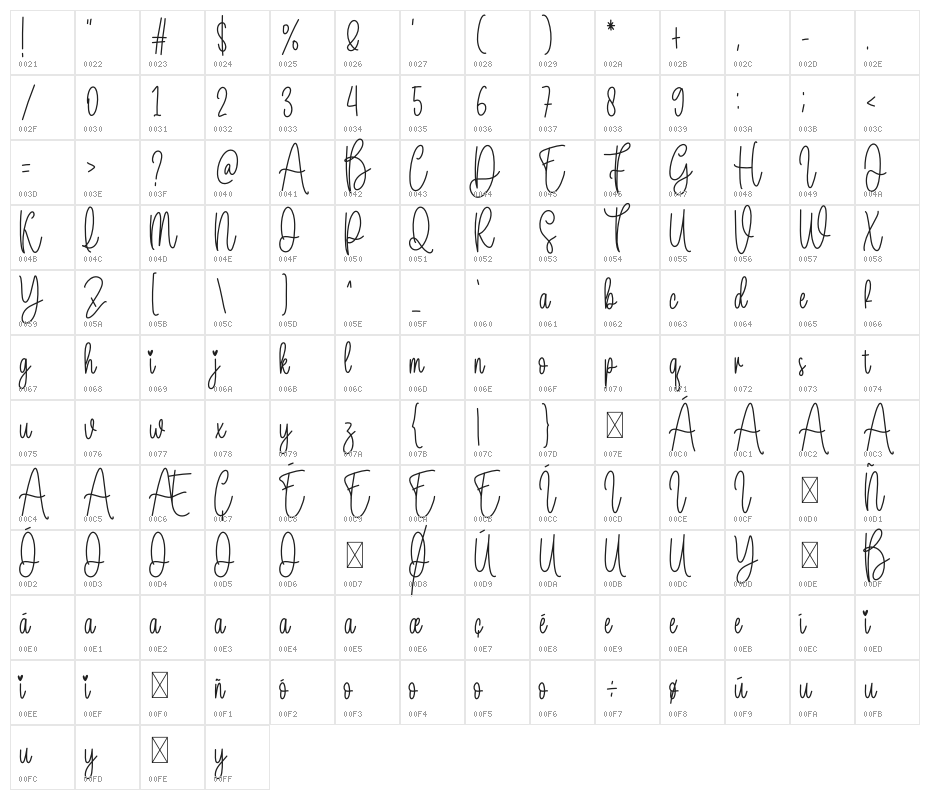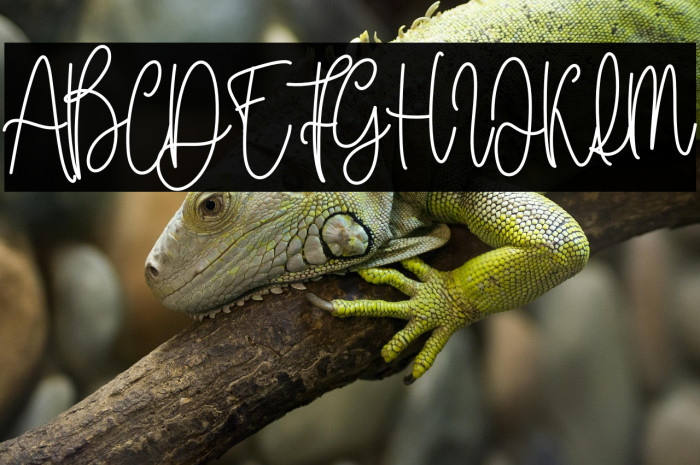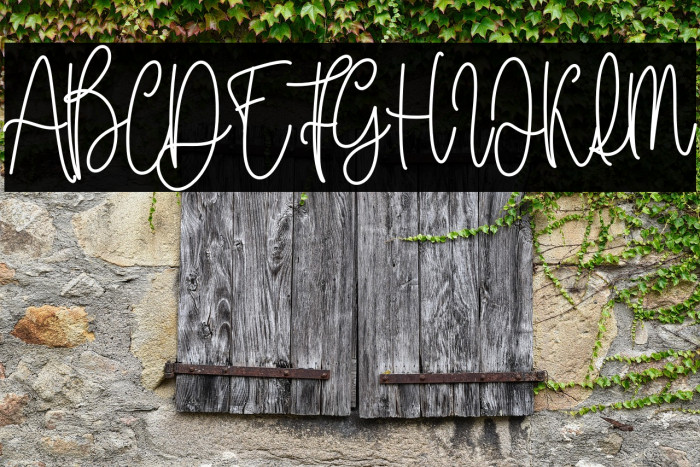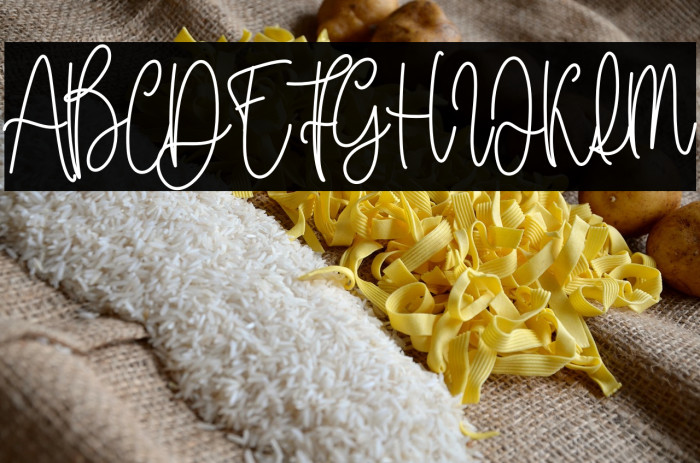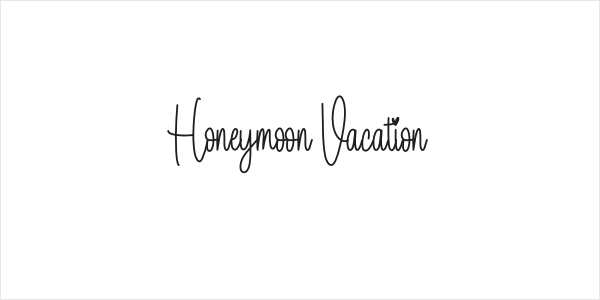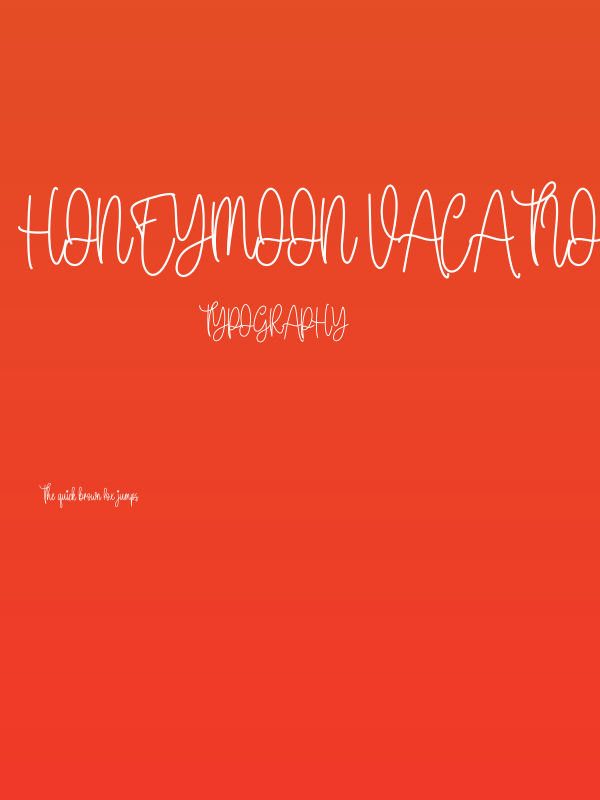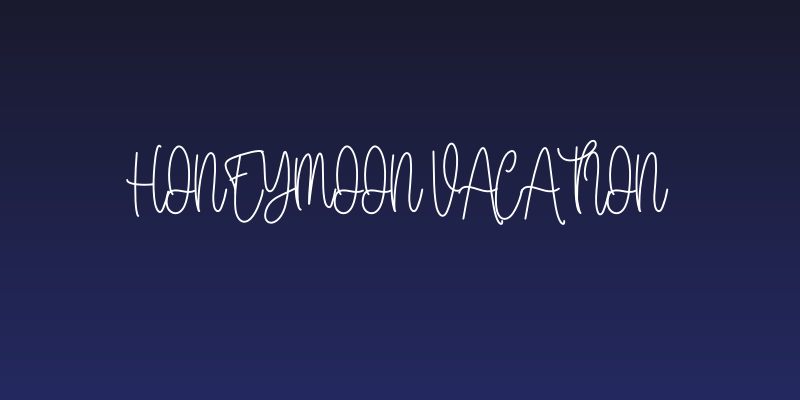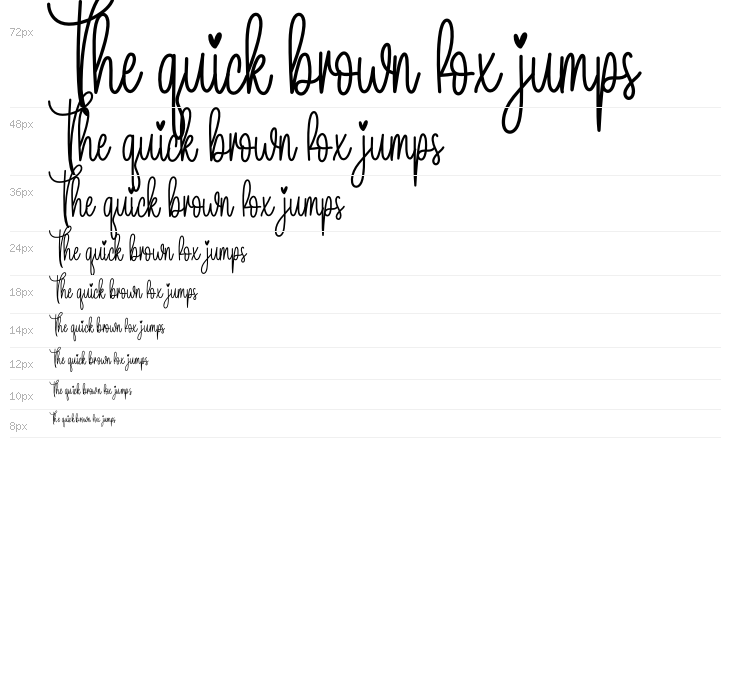
Honeymoon Vacation Font
Honeymoon Vacation Description
This font features a playful and whimsical handwritten style, characterized by its flowing, cursive-like uppercase letters and more structured lowercase letters. The strokes are smooth and consistent, giving it a casual yet elegant appearance. The numbers and special characters maintain the same playful aesthetic, ensuring a cohesive look across all text elements. Its unique style makes it stand out, offering a personal touch to any design.
| Proposed Projects | Ideal for wedding invitations, greeting cards, personal branding, and creative projects that require a personal touch. |